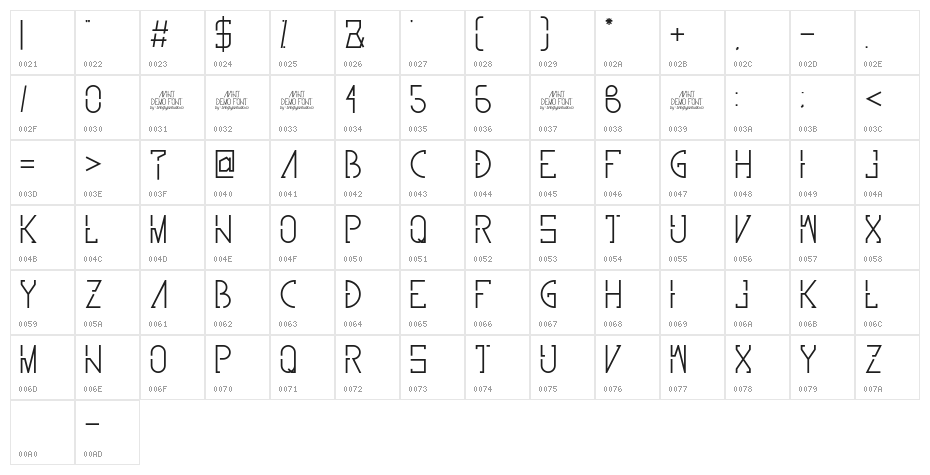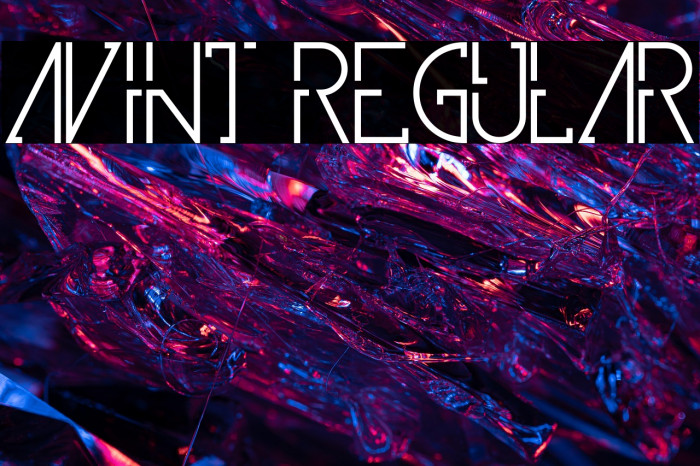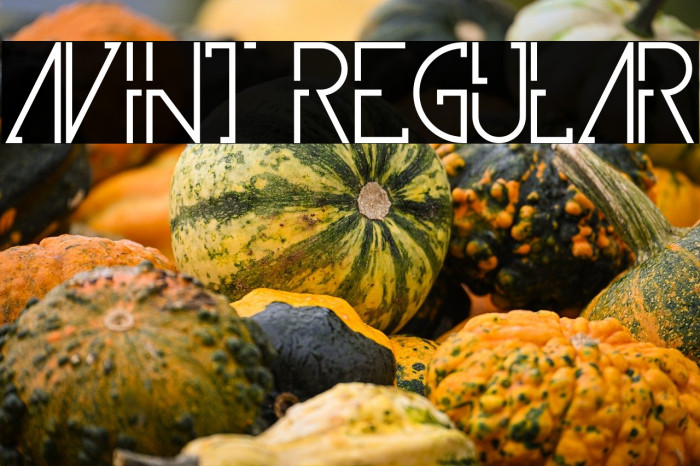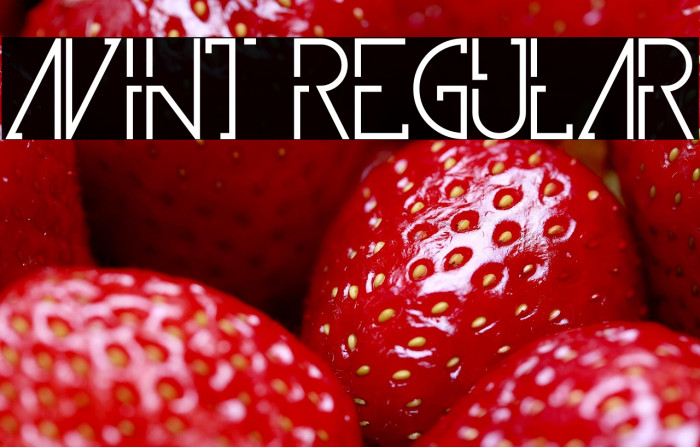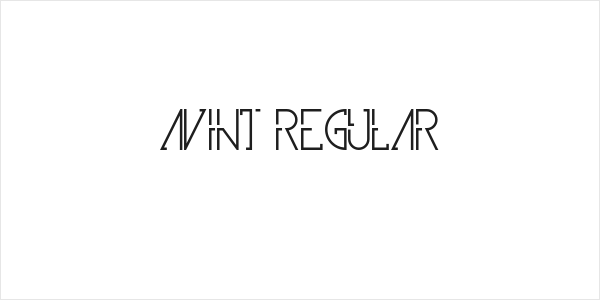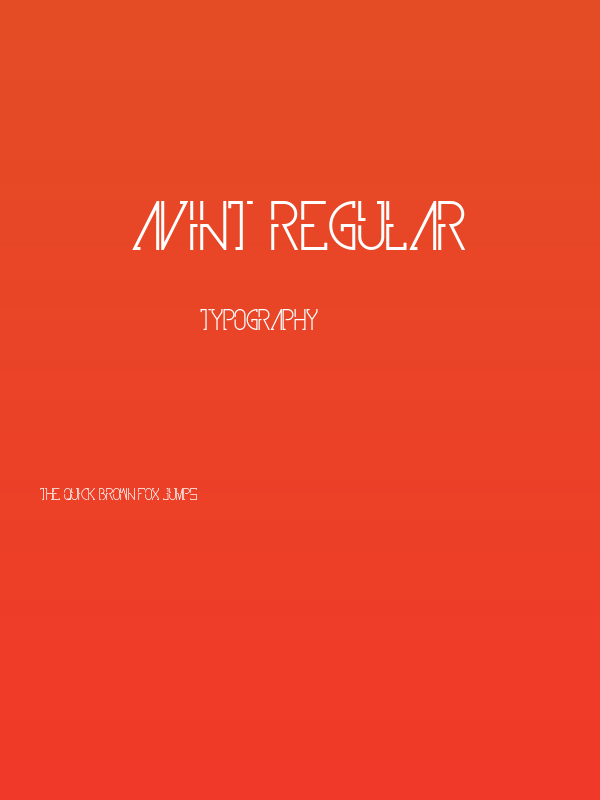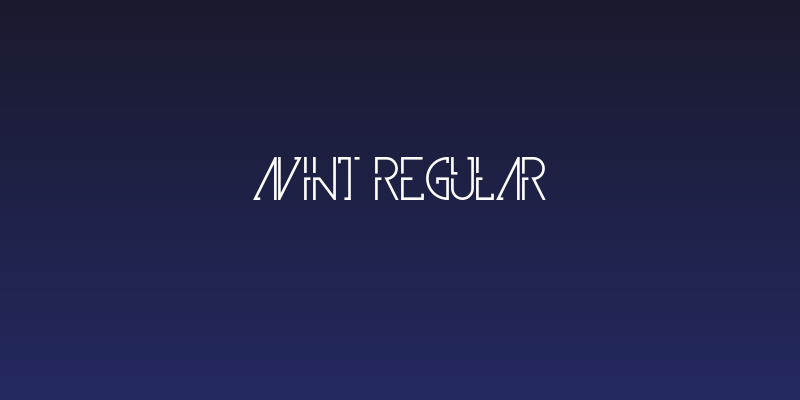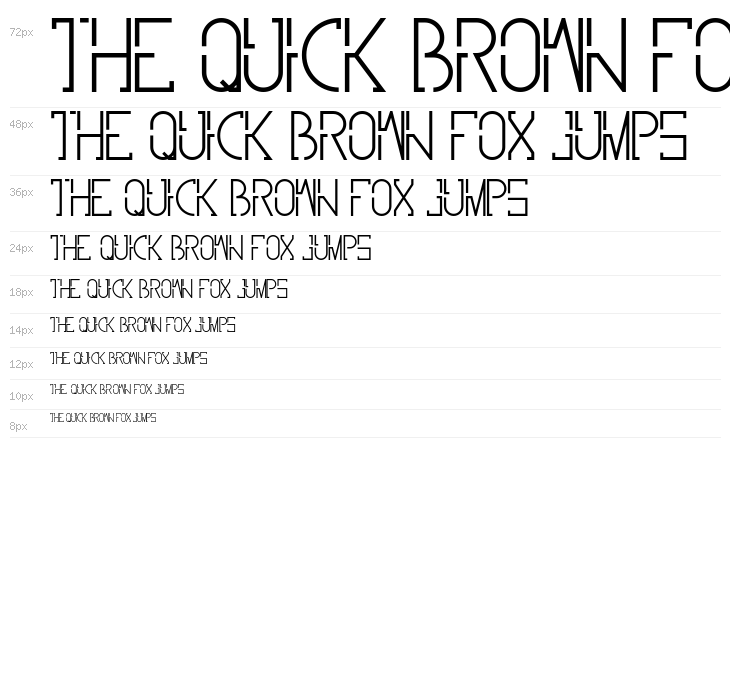
Avint Regular Font
Avint Regular Description
This font exhibits a unique and modern geometric style, characterized by its sharp angles and clean lines. The uppercase letters are particularly striking, with a futuristic aesthetic that is both bold and minimalistic. The lowercase letters maintain this geometric theme, offering a consistent look across all characters. Numbers and special characters are designed with the same attention to detail, ensuring a cohesive appearance. The overall design is highly stylized, making it ideal for projects that require a contemporary and edgy look.
| Use Case | Logos, Posters, Branding |
| Proposed Projects | Ideal for branding, logos, posters, and any design project that requires a modern and edgy look. |